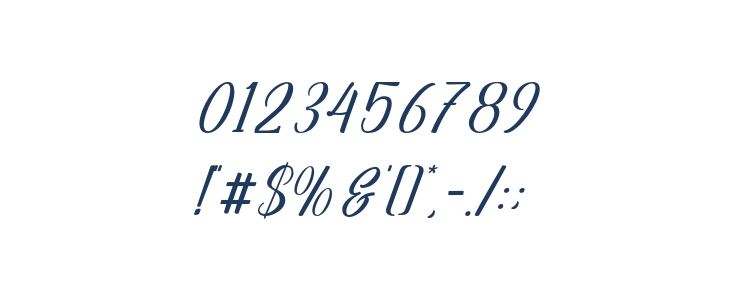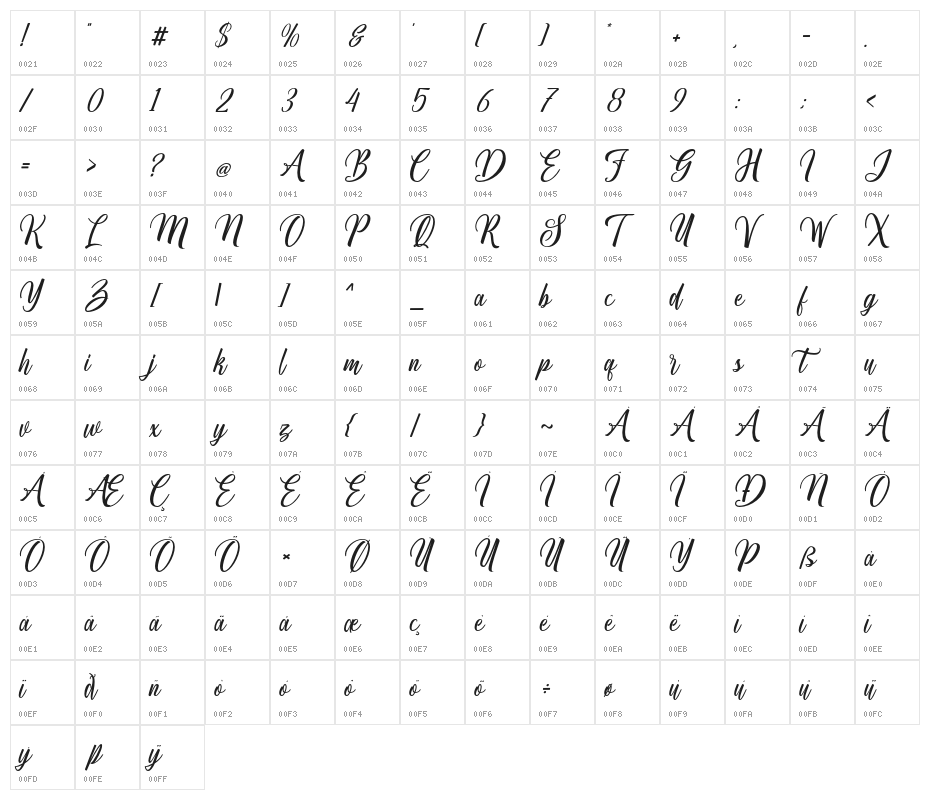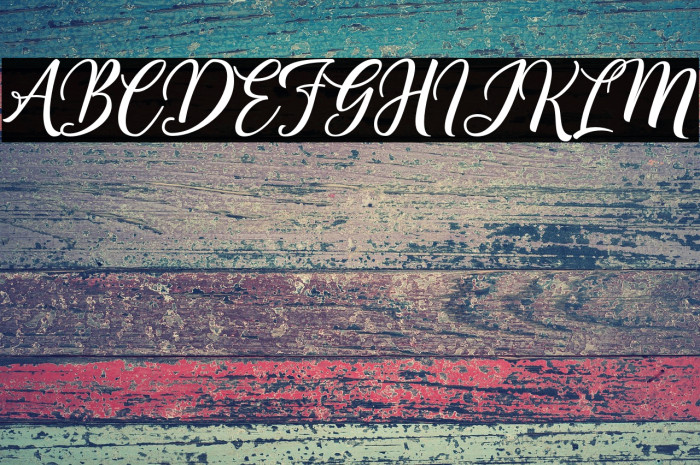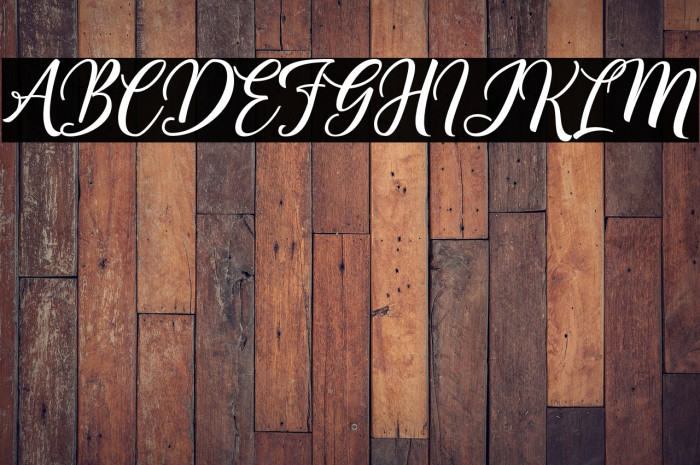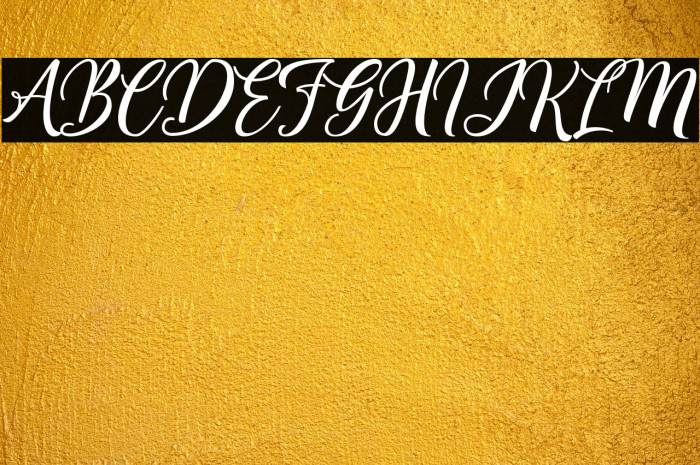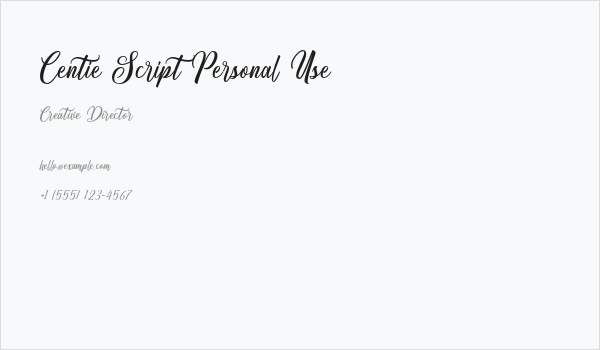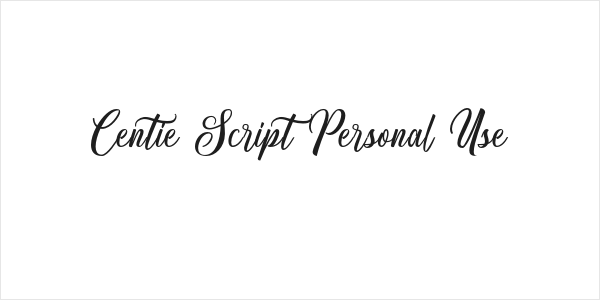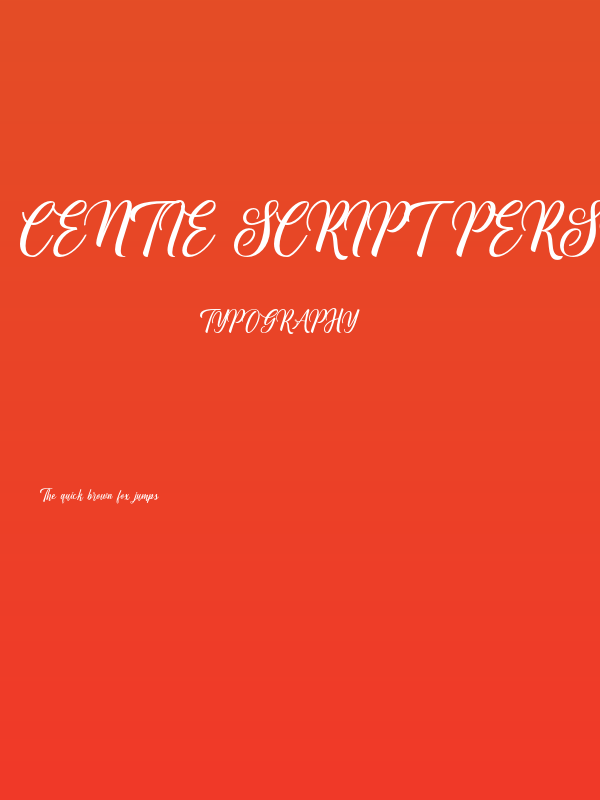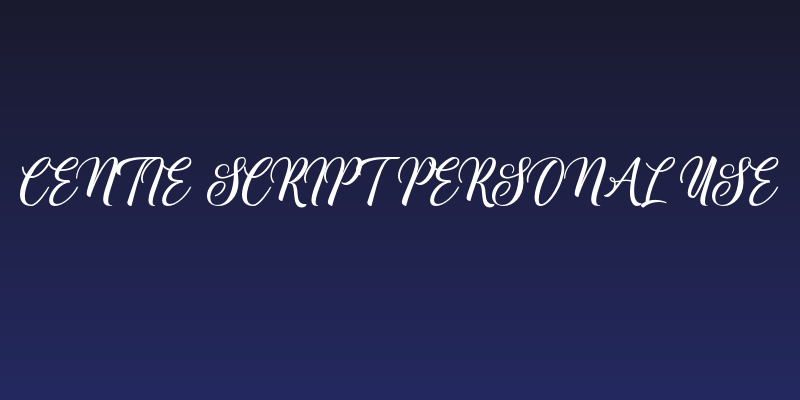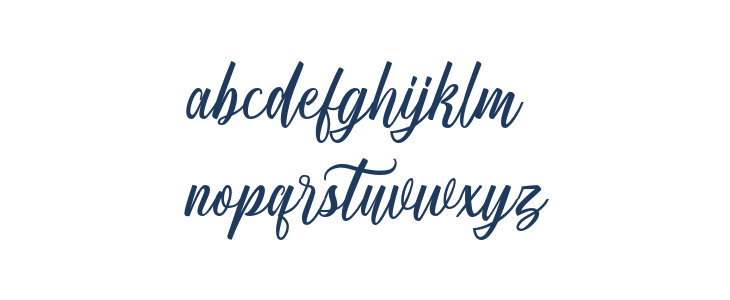
Centie Script Personal Use Font
Centie Script Personal Use Description
This elegant script font features a flowing, cursive style with a modern twist. The uppercase letters are bold and sweeping, with intricate loops and flourishes that add a touch of sophistication. The lowercase letters maintain a consistent flow, creating a harmonious and connected appearance. The numerals are stylish and maintain the same cursive elegance, making them suitable for decorative purposes. Special characters are thoughtfully designed to match the overall aesthetic, ensuring a cohesive look across all text elements. This font is perfect for projects that require a touch of elegance and style.
| Use Case | Logos, Headlines, Decorative text |
| Proposed Projects | Ideal for wedding invitations, elegant branding, greeting cards, and decorative signage. |